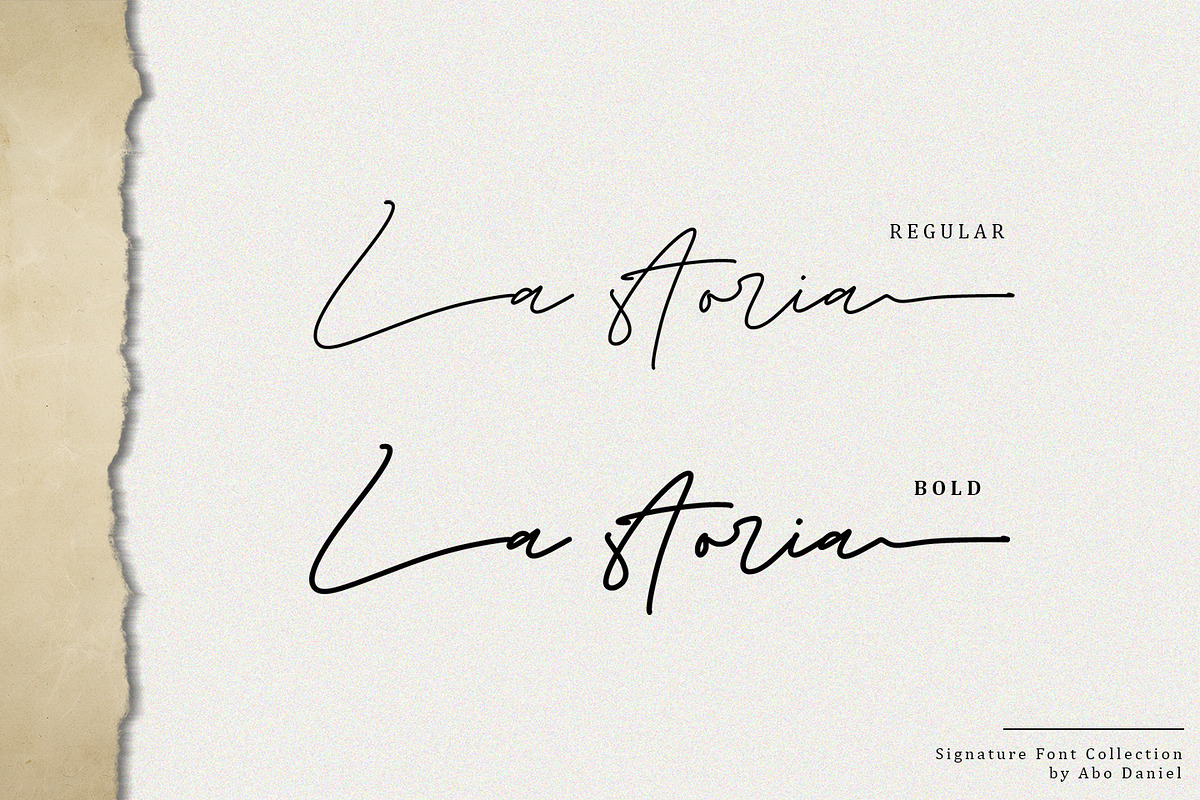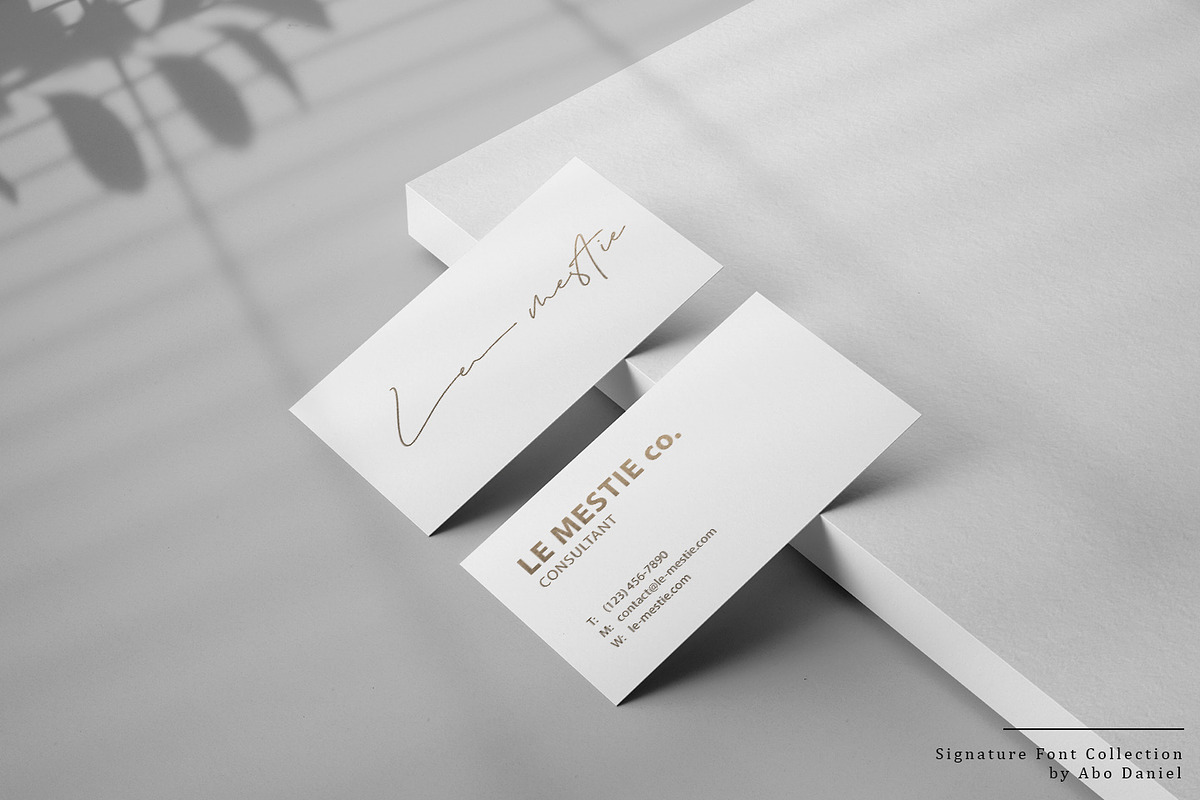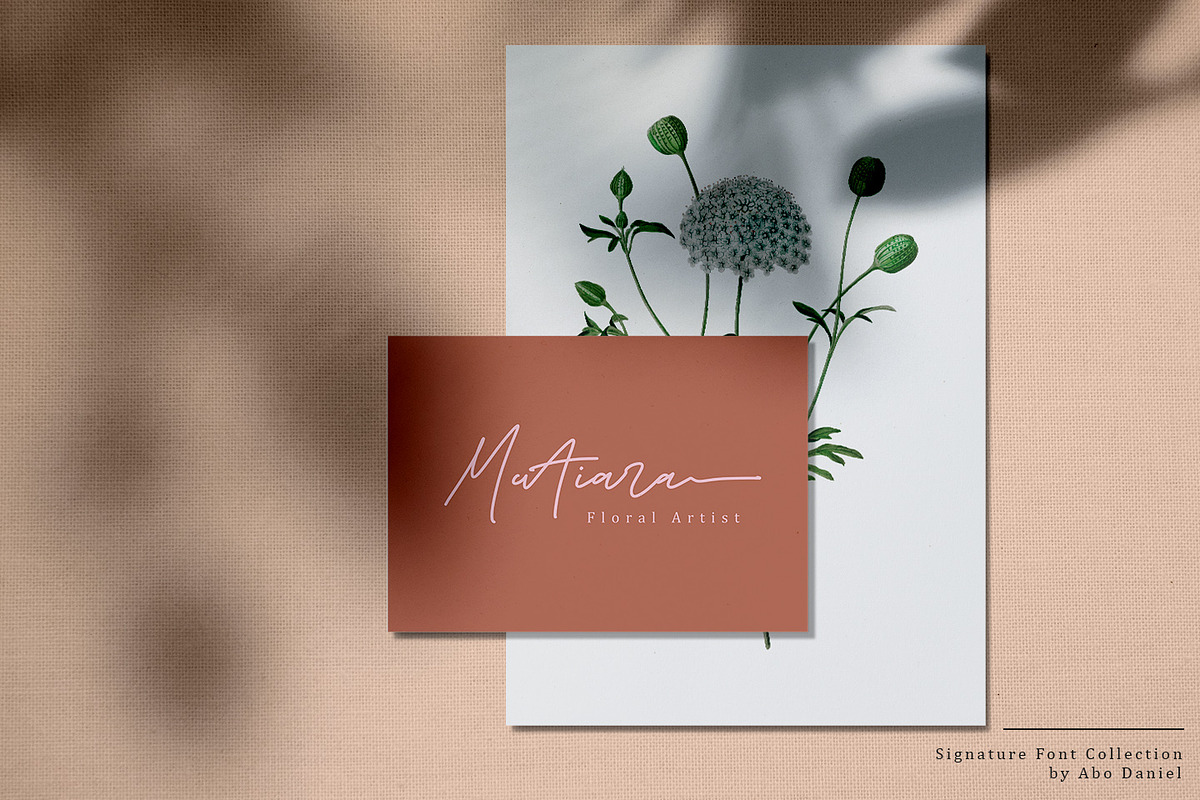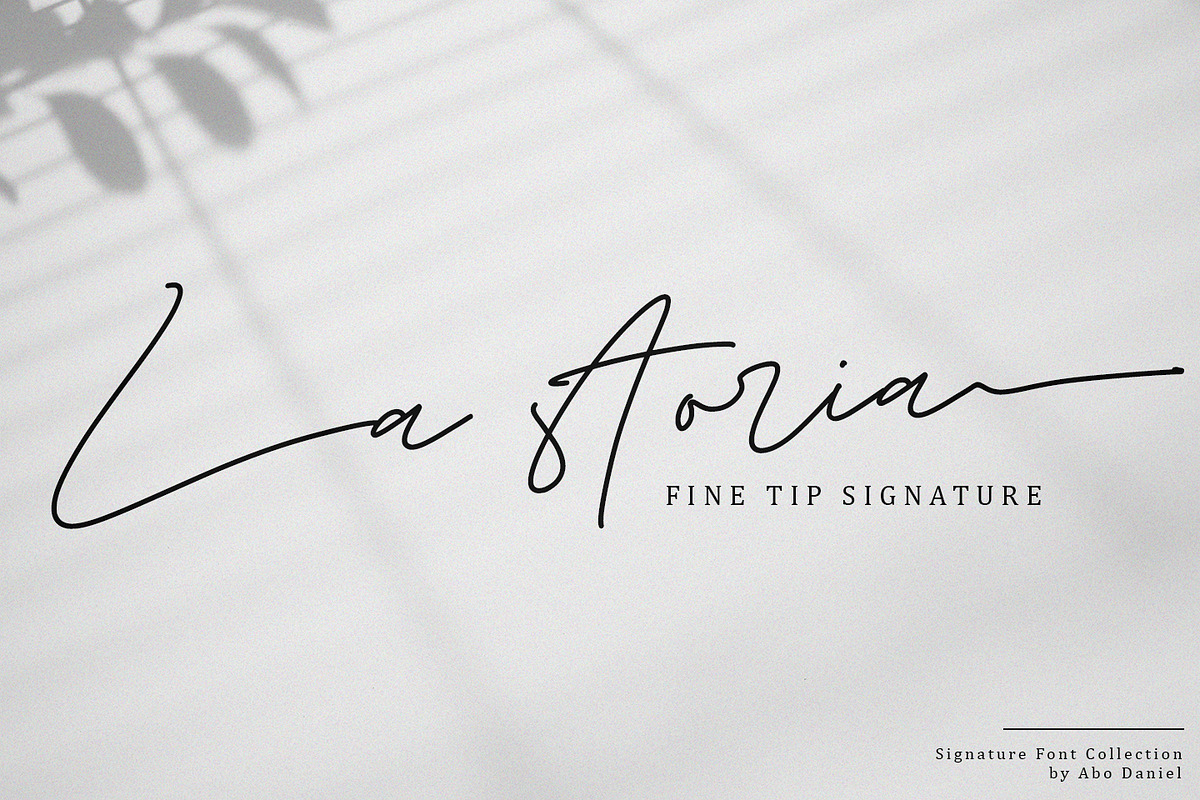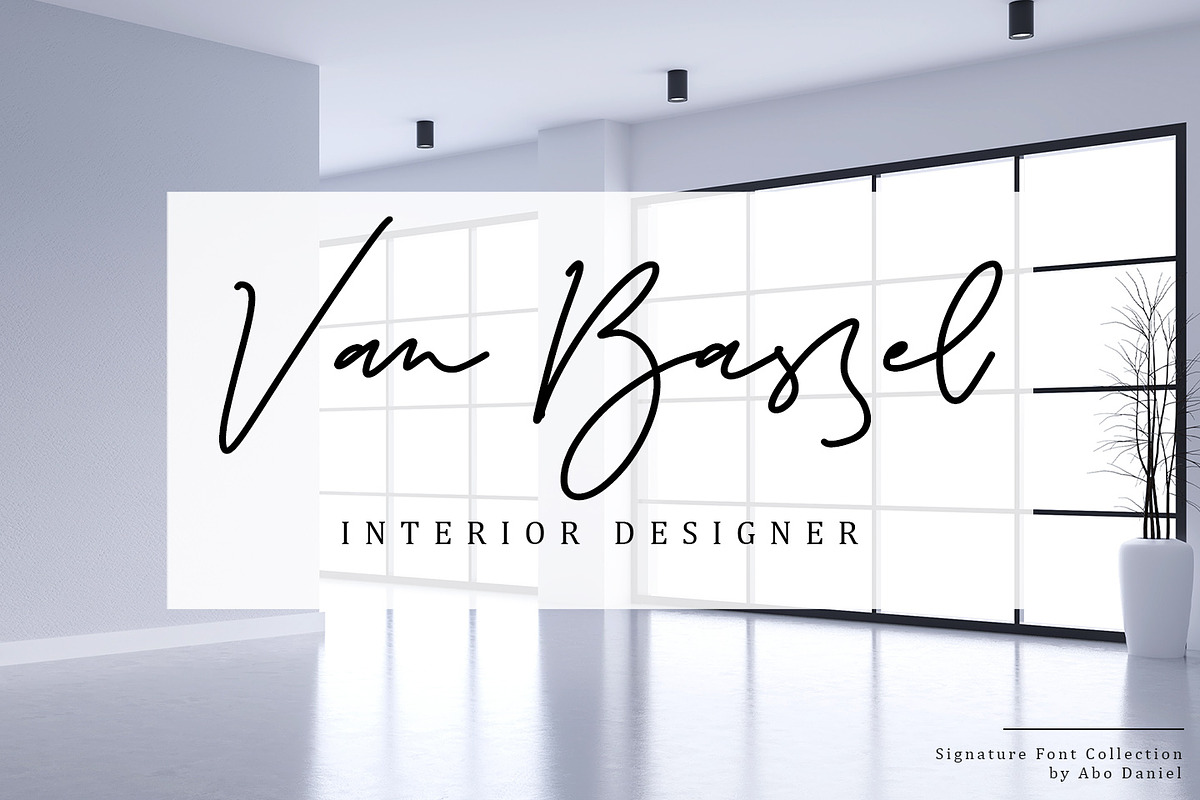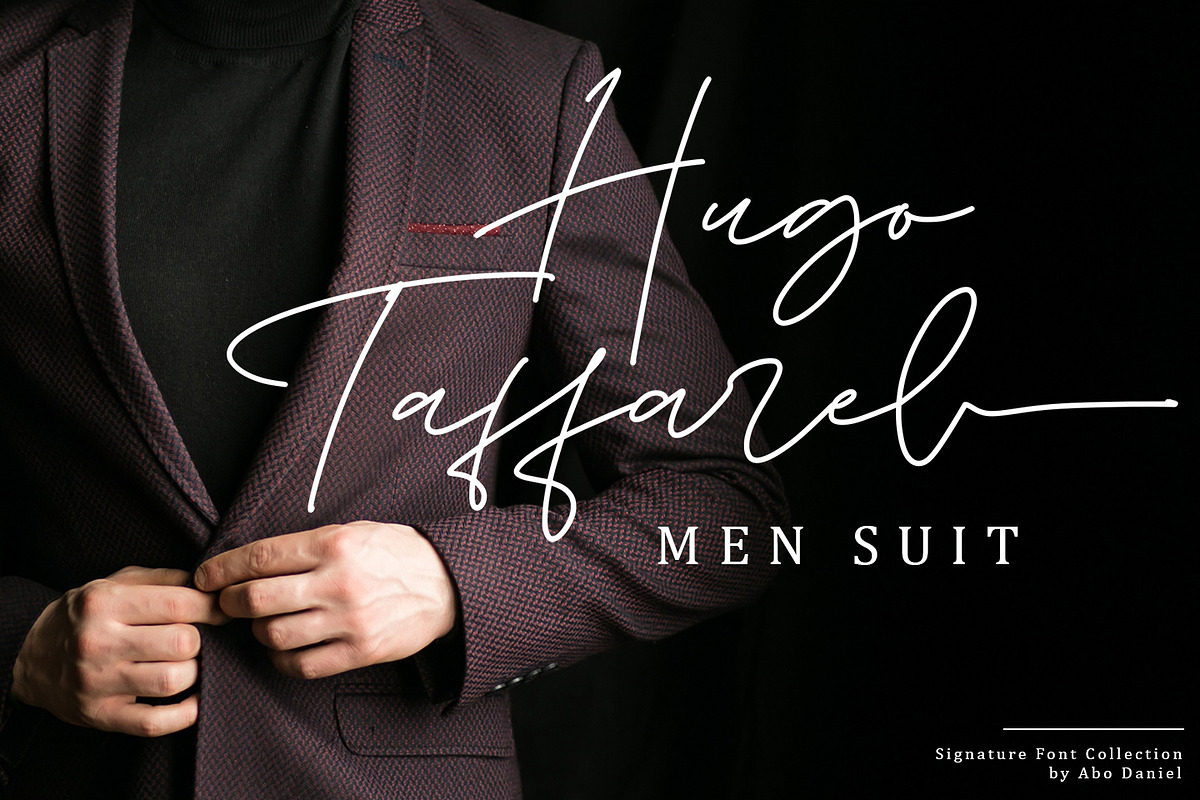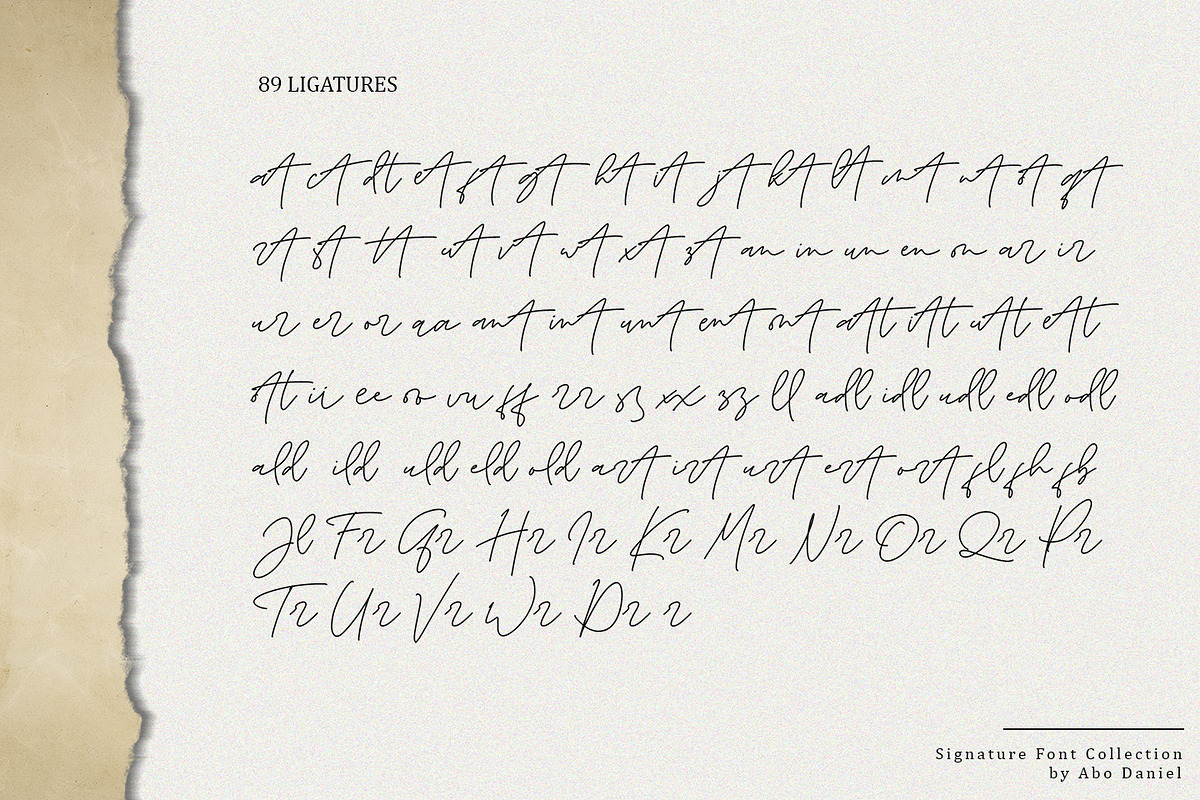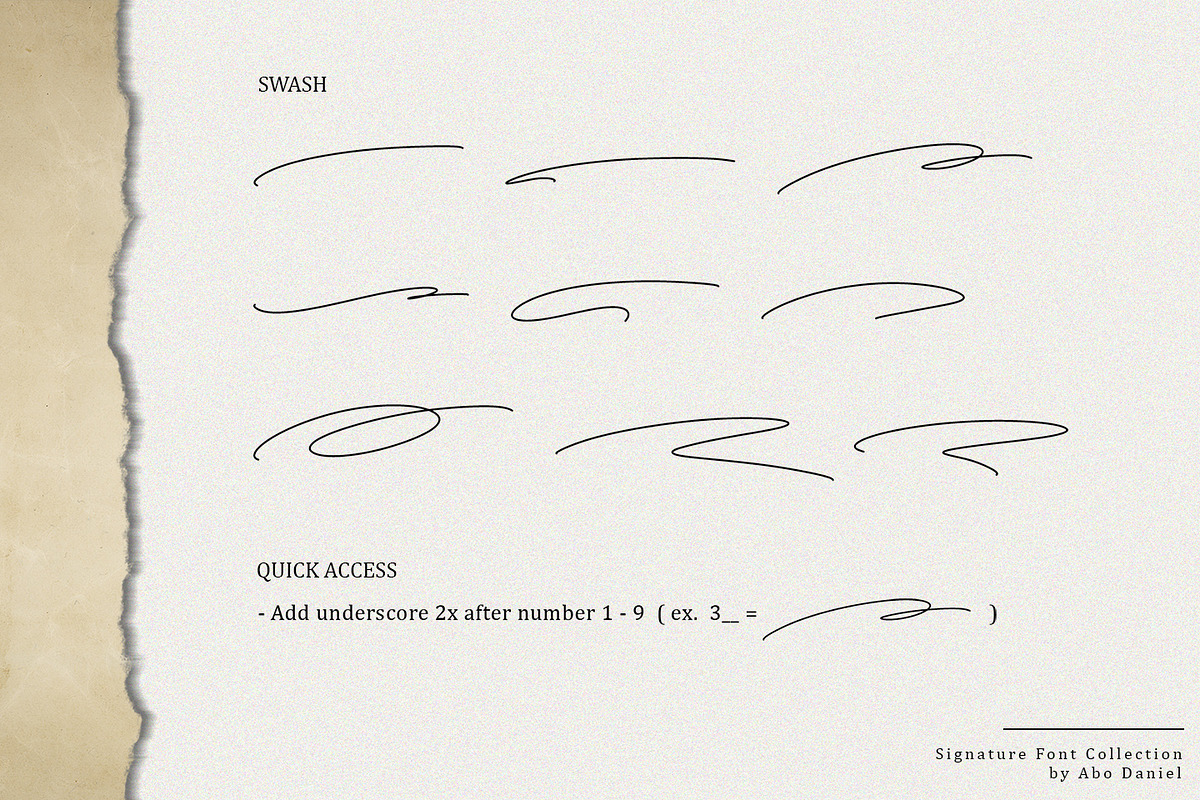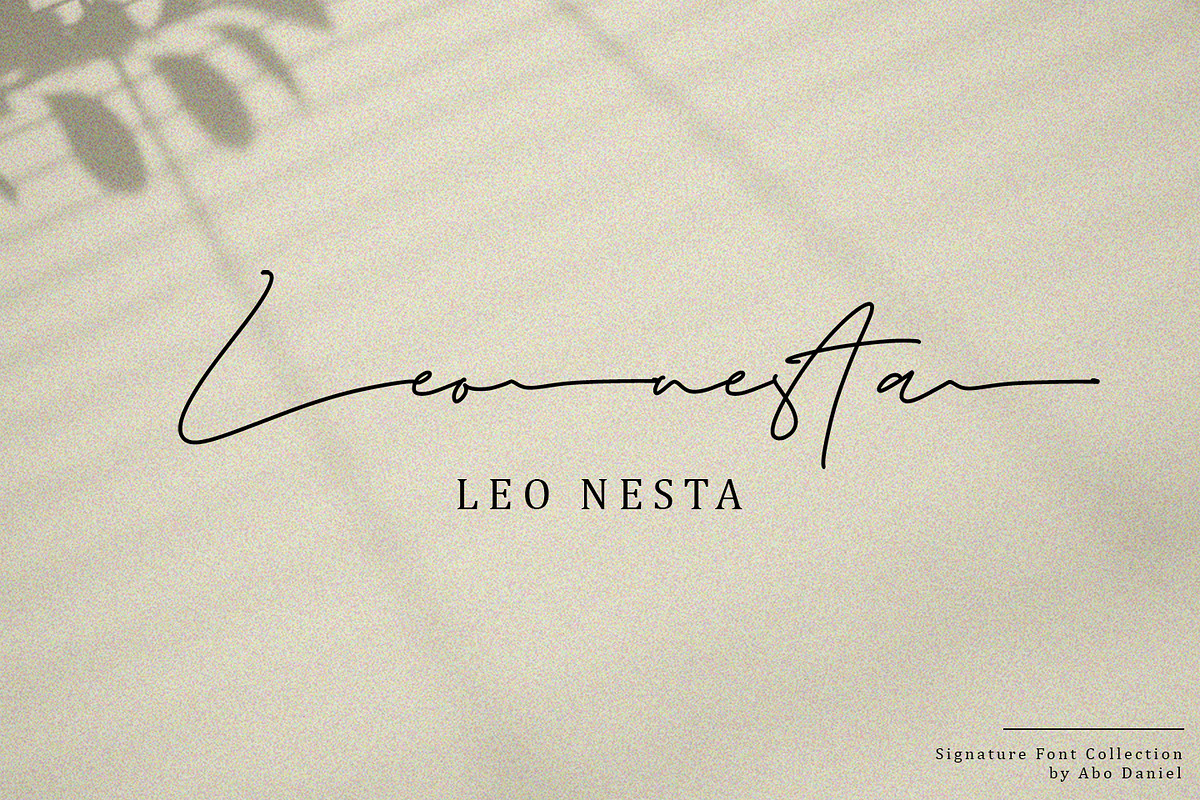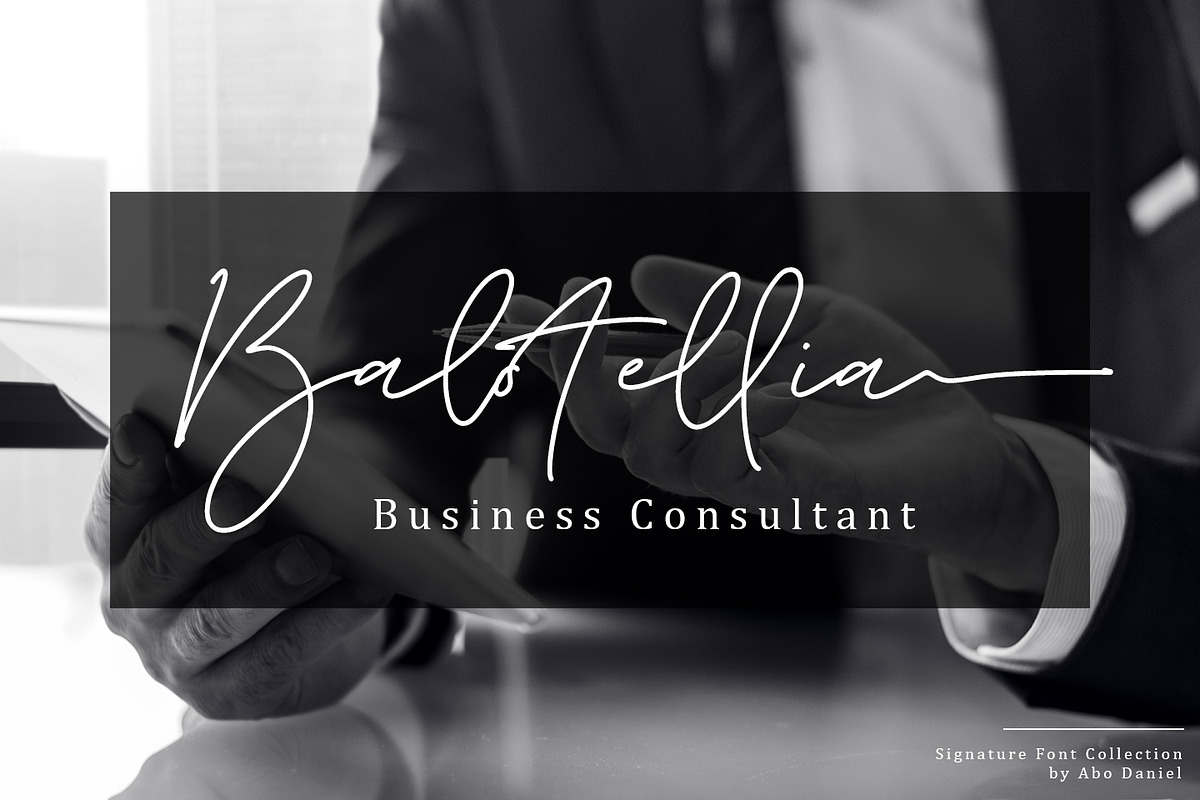
La Storia
Introducing
La Storia - a fine tip signature font -
Beautiful monoline signature, that looks so classy and natural.
La Storia is perfect for branding, photography, invitations, quotes, watermarks, advertisements, product designs, labels, and more that need a natural sign feel.
It came in 2 versions,
Bold
Includes number, punctuations, and multilingual support
I created 89 ligatures to keep this font looking natural.
at ct dt et ft gt ht it jt kt lt mt nt ot qt rt st tt ut vt wt xt zt an in
un en on ar ir ur er or aa ant int unt ent ont att itt utt ett ott ii
ee oo uu ff rr ss xx zz ll adl idl udl edl odl ald ild uld eld old art
irt urt ert ort fl fh fb jl Fr Gr Hr Ir Kr Mr Nr Or Pr Tr Ur Vr Wr Dr
space-r
The Swash
- Titling and Ending Swash.
Add underscore 2x before or after a lowercase (you can see this on the presentation posters). For example, a or _ _a
- Line Swash.
Add underscore 2x before numbers from 1 to 9, you'll get 9 variations of the swash line (as shown in the posters).
For example _ _1